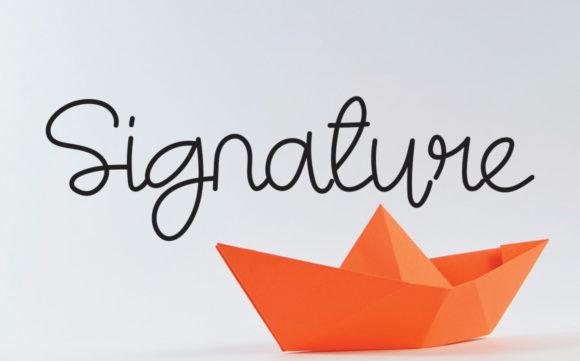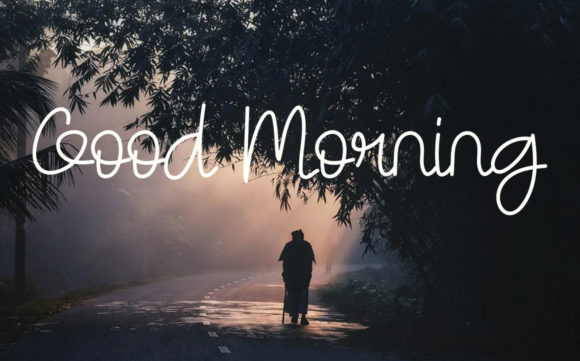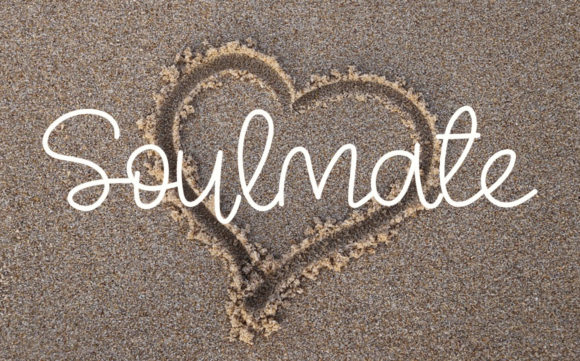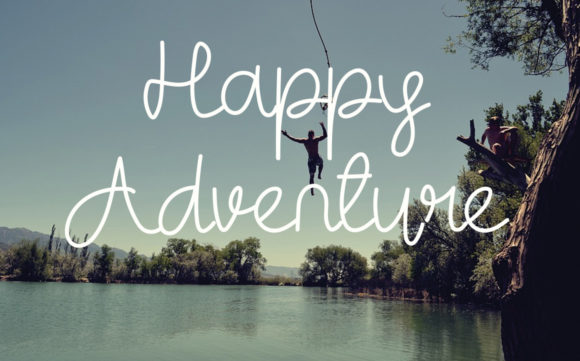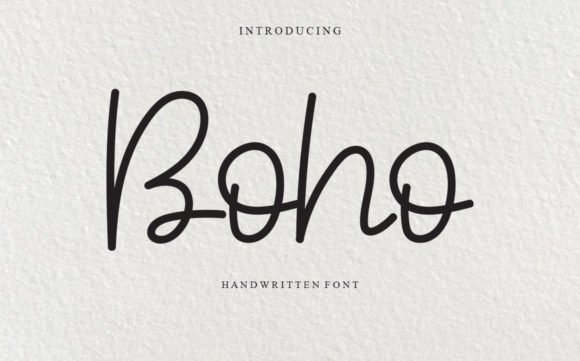
Have you ever sat at your desk, staring at a blank canvas, trying to come up with the perfect font to bring your design to life? You know, that moment when the cursor blinks impatiently, waiting for your creative spark to ignite. It’s a feeling every designer knows all too well.
Enter the Boho Font, a clean, natural, and delicate handwritten font designed to give your designs a beautiful and refreshing look. Crafted with love, this font is perfect for those who want to add a touch of elegance and sophistication to their work. Whether you’re a seasoned pro or just starting out, the Boho Font is a valuable addition to any designer’s toolkit.
Boho Font Key Features
- Font Family: Boho is a unique, hand-drawn script font with a bohemian style, perfect for creative and artistic designs.
- Font Size: Boho is designed to be highly legible at various font sizes, with optimal readability at sizes 12-48 points.
- Language Support: Boho includes a wide range of language support, including Latin, Cyrillic, and Greek alphabets, making it a versatile font for global designs.
- Unique Characteristics: Boho’s hand-drawn style, with subtle imperfections and variations, adds a touch of personality and whimsy to any design.
Designer Review: Boho Font
Overall, I’m quite impressed with the Boho Font. It’s got a great laid-back vibe that’s perfect for creatives and artists who want to add a touch of elegance to their designs.
- The unique blend of modern and vintage elements gives Boho Font a distinctive look that’s hard to find in other fonts.
- The font may not be suitable for formal or professional settings, as it’s more geared towards creative and artistic projects.
- The font family is relatively small, which may limit its versatility in certain design contexts.
In conclusion, Boho Font is a great choice for designers who want to add a touch of bohemian flair to their designs. While it may have some limitations, its unique look and high-quality rendering make it a worthwhile investment for creatives who want to stand out.
For a more authentic bohemian look, try combining the Boho Font with other decorative fonts and bold text.
For a more textured look, try using the Boho Font with a distressed or vintage filter.
For a more cohesive look, try using the Boho Font consistently throughout your presentation or document.
For a truly bohemian look, try combining the Boho Font with other design elements such as:
- Watercolor or hand-drawn textures.
- Floral patterns or other natural motifs.
- Soft, pastel colors.
Remember to balance the Boho Font with clean and simple design elements to avoid overwhelming the viewer.
The Boho Font is perfect for:
- Choose a beautiful watercolor background to set the tone for the invitation.
- Use Boho Font to write the wedding details, such as the date, time, and location.
- Add some floral elements, like a bouquet of flowers or a leafy garland, to complement the font.
- Use a combination of uppercase and lowercase letters to create a sense of whimsy and romance.
- Experiment with different color schemes, such as pastel shades or rich jewel tones, to create a unique and eye-catching design.
- Don’t be afraid to add some texture and depth to your design by incorporating subtle patterns or illustrations.
- Choose a distressed or vintage-inspired background to give your journal a worn and weathered look.
- Use Boho Font to write your travel notes, such as the names of places you’ve visited or the memories you’ve made.
- Add some illustrations or doodles to break up the text and add visual interest to your journal
Boho Font Creative Project Ideas
Project 1: Boho Chic Wedding Invitation
Create a unique and romantic wedding invitation that captures the essence of bohemian style. The Boho Font will add a touch of elegance and sophistication to your invitation design.
Project 2: Boho-Inspired Travel Journal
Create a beautiful and functional travel journal that captures the essence of your adventures. The Boho Font will add a touch of free-spirited adventure to your journal design.